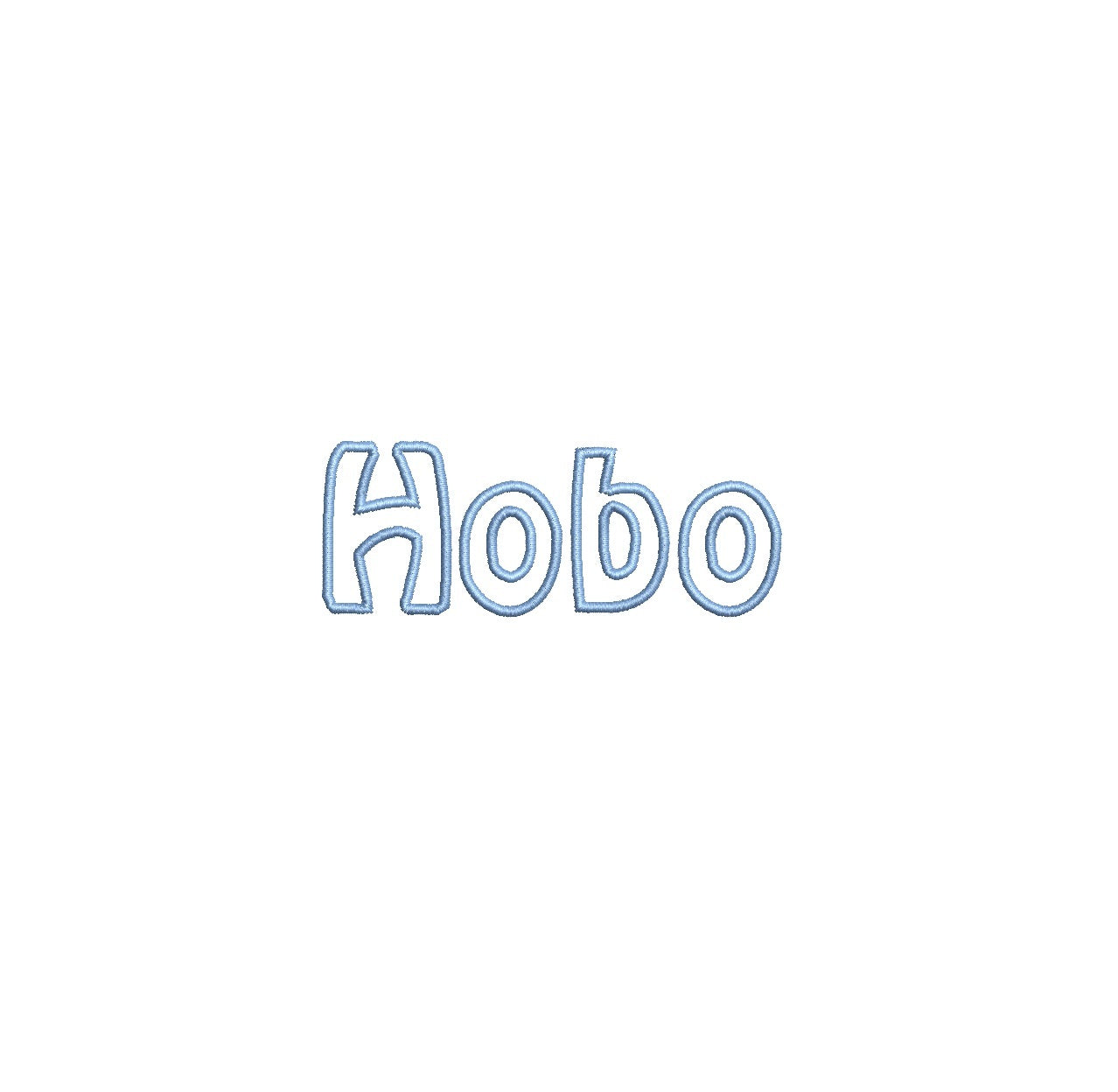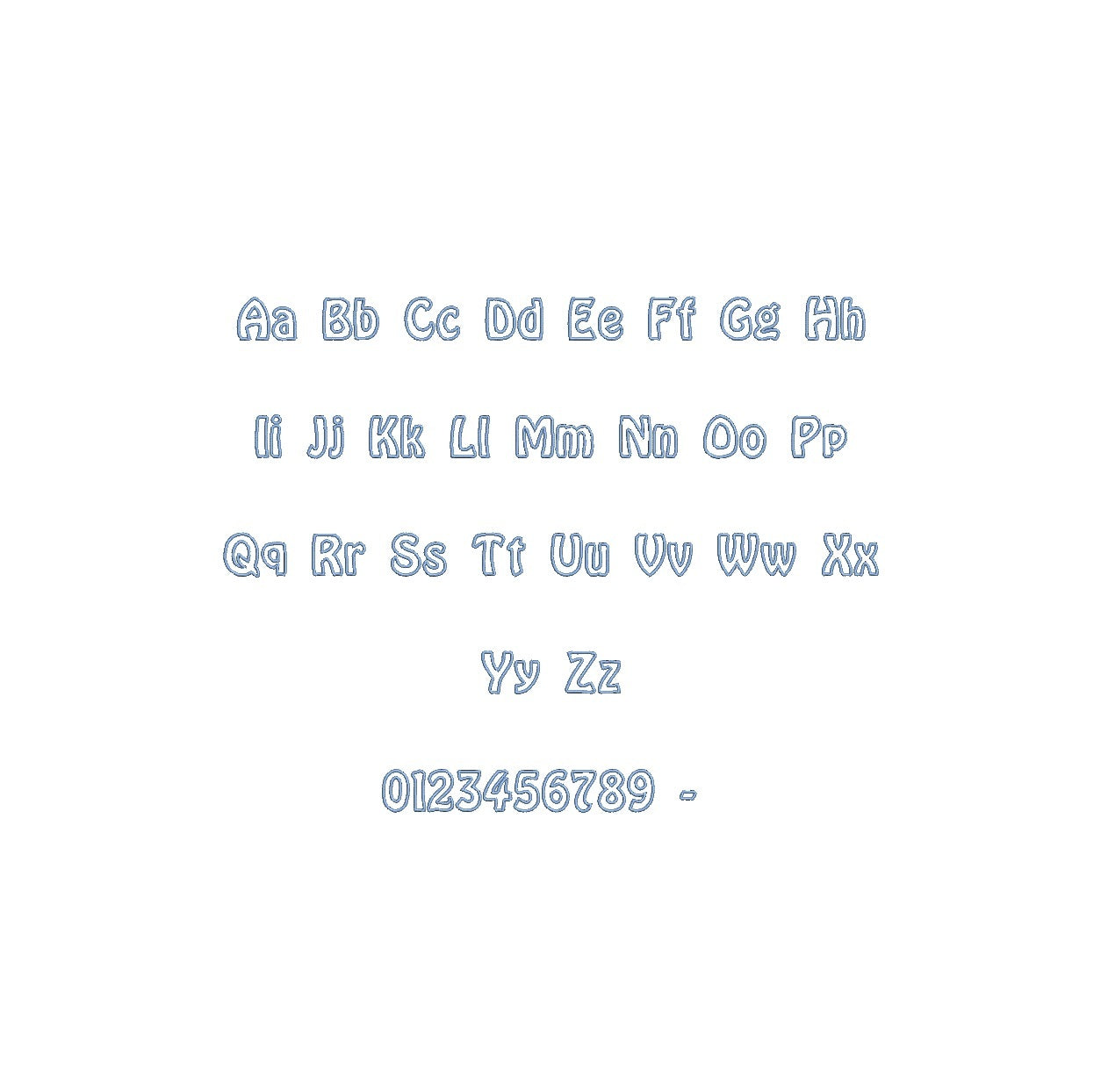
Elevate your embroidery designs with the Hobo Outline ESA font, now fully compatible with Wilcom Studio e4.5.6 and Hatch 3 versions and beyond. This unique and playful typeface brings a touch of whimsy to your projects. Its distinctive outlines and free-spirited style are perfect for creative, eye-catching logos, and designs that stand out. Seamless integration into your preferred embroidery software ensures easy editing and high-quality results. With the Hobo Outline ESA font, infuse your designs with a sense of individuality and artistic flair. Explore new horizons in digitizing and make your embroidery truly exceptional with this essential tool in your collection.